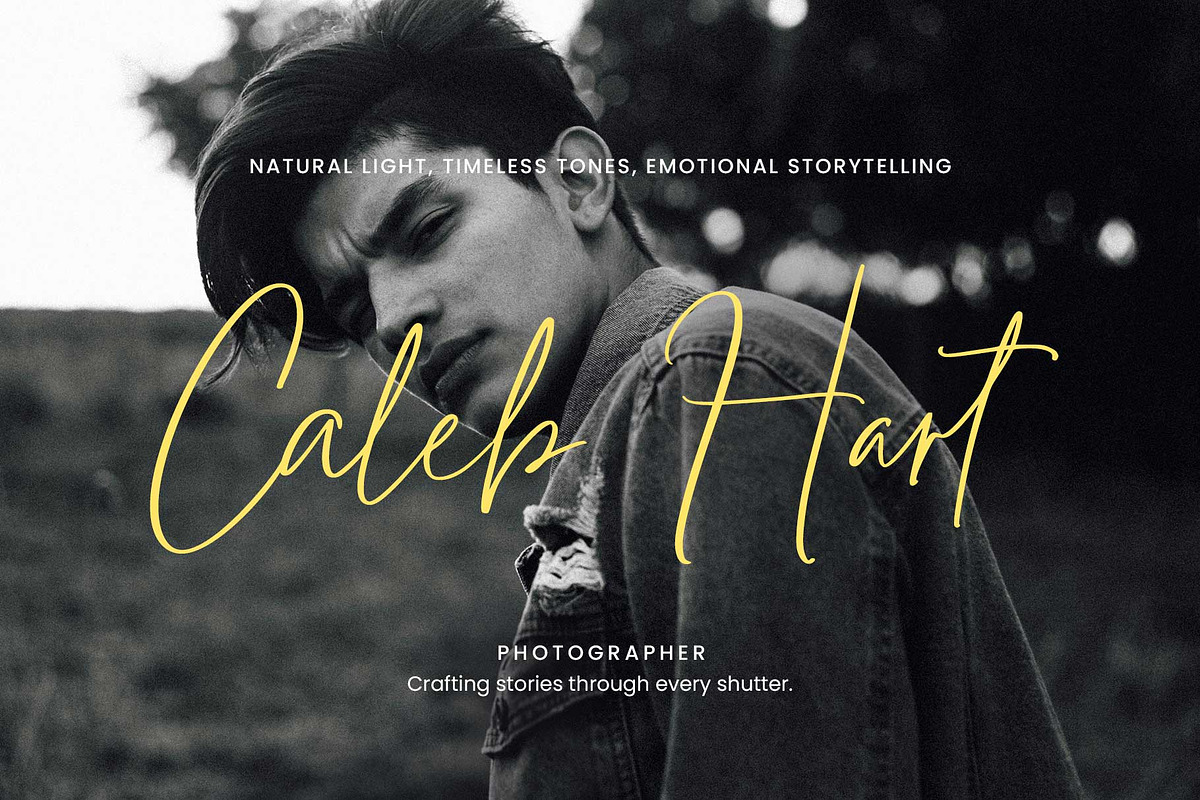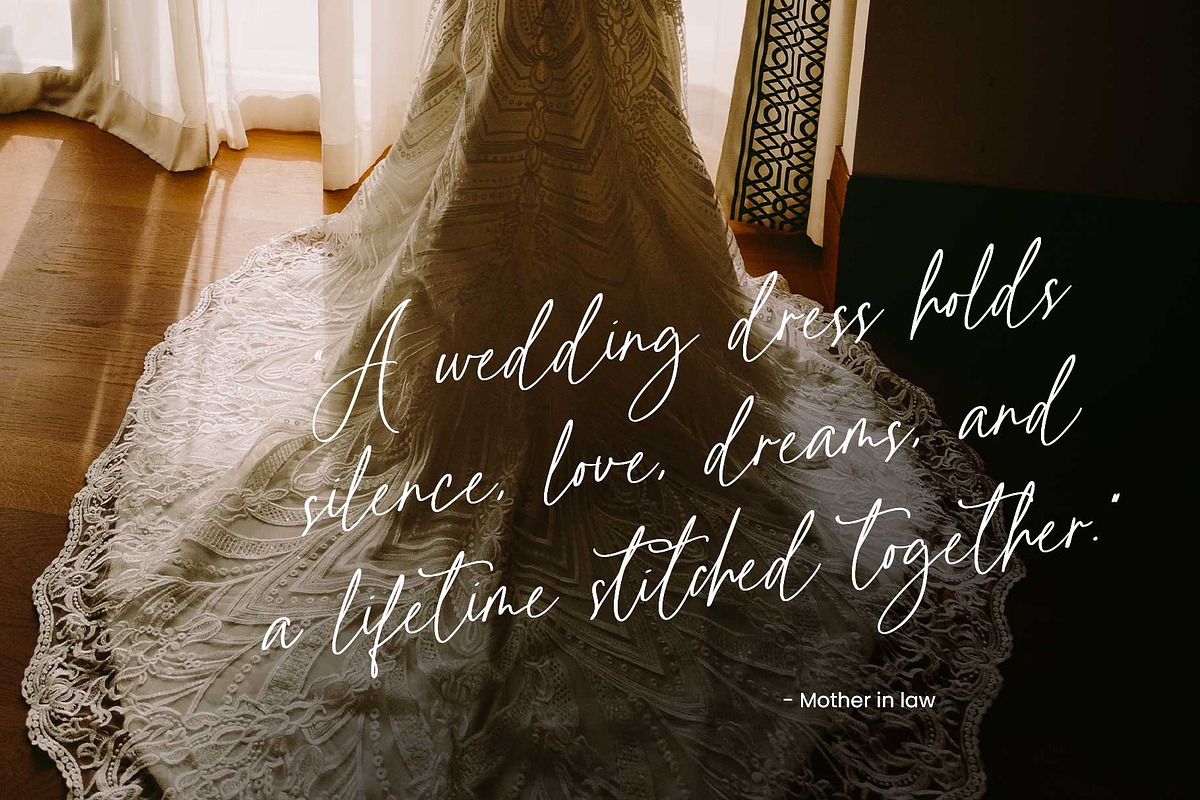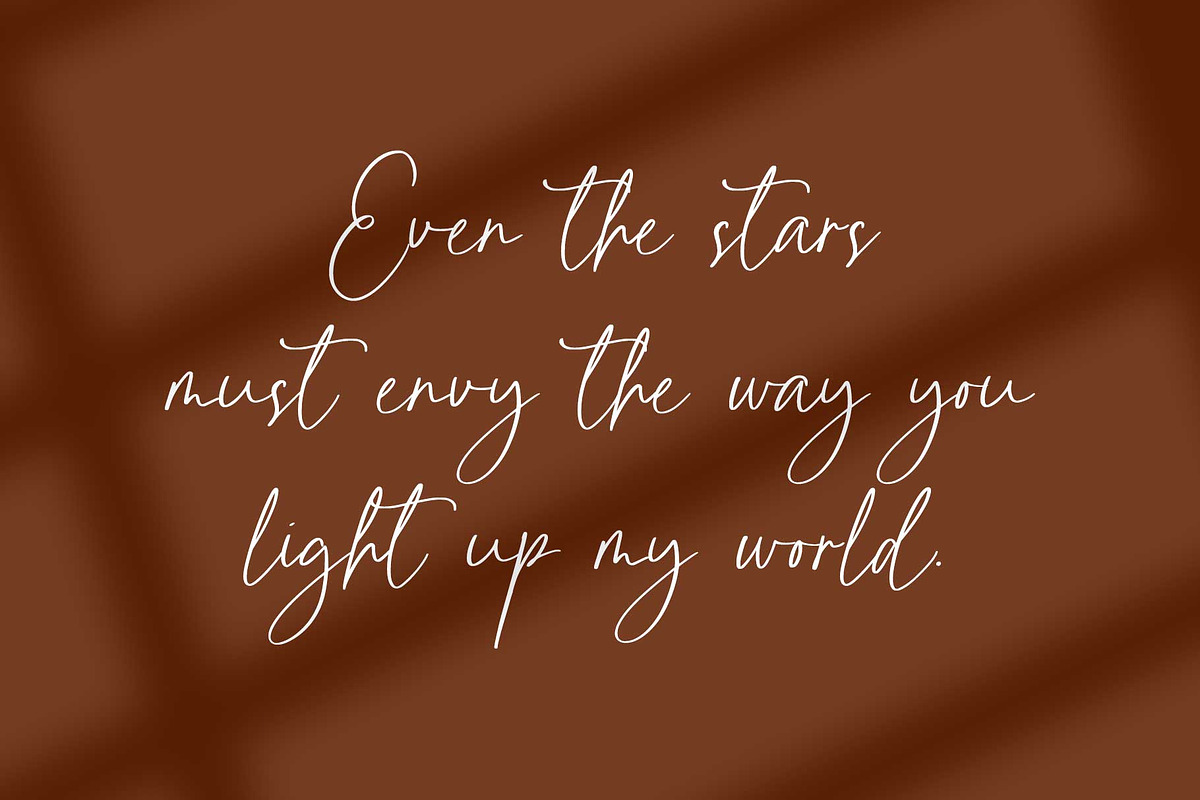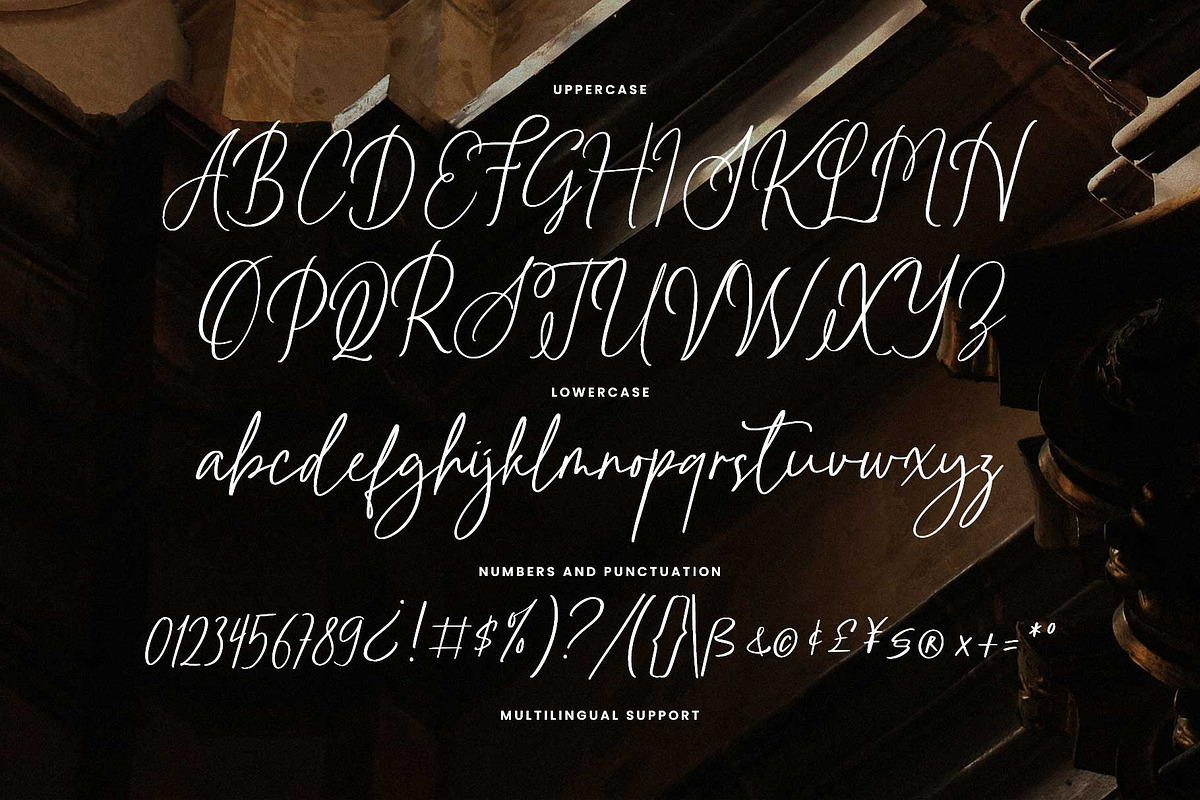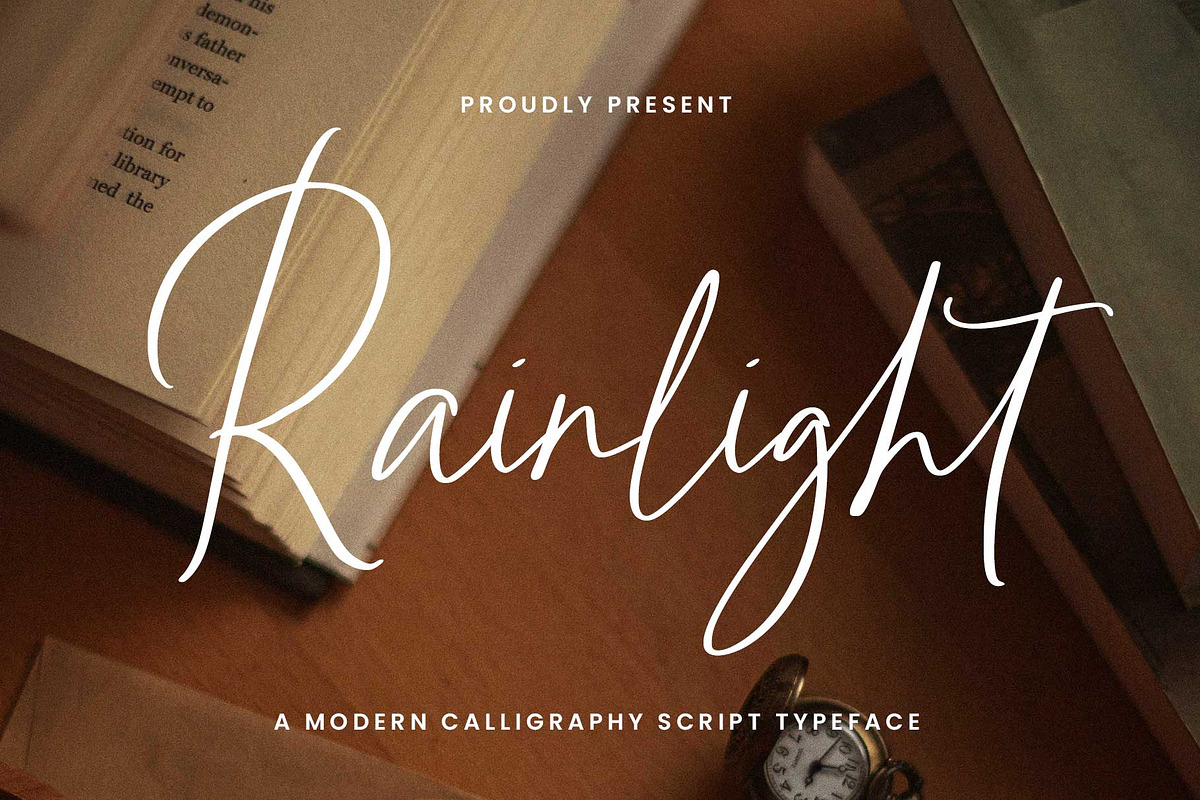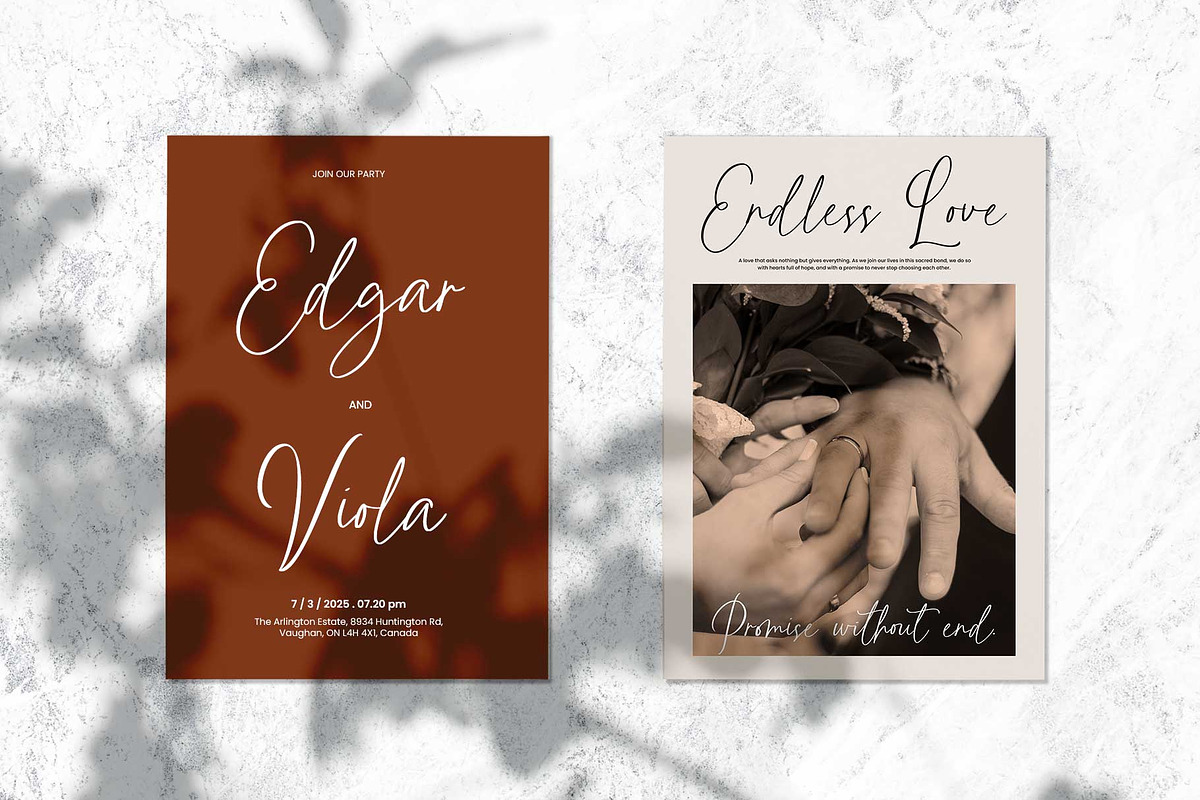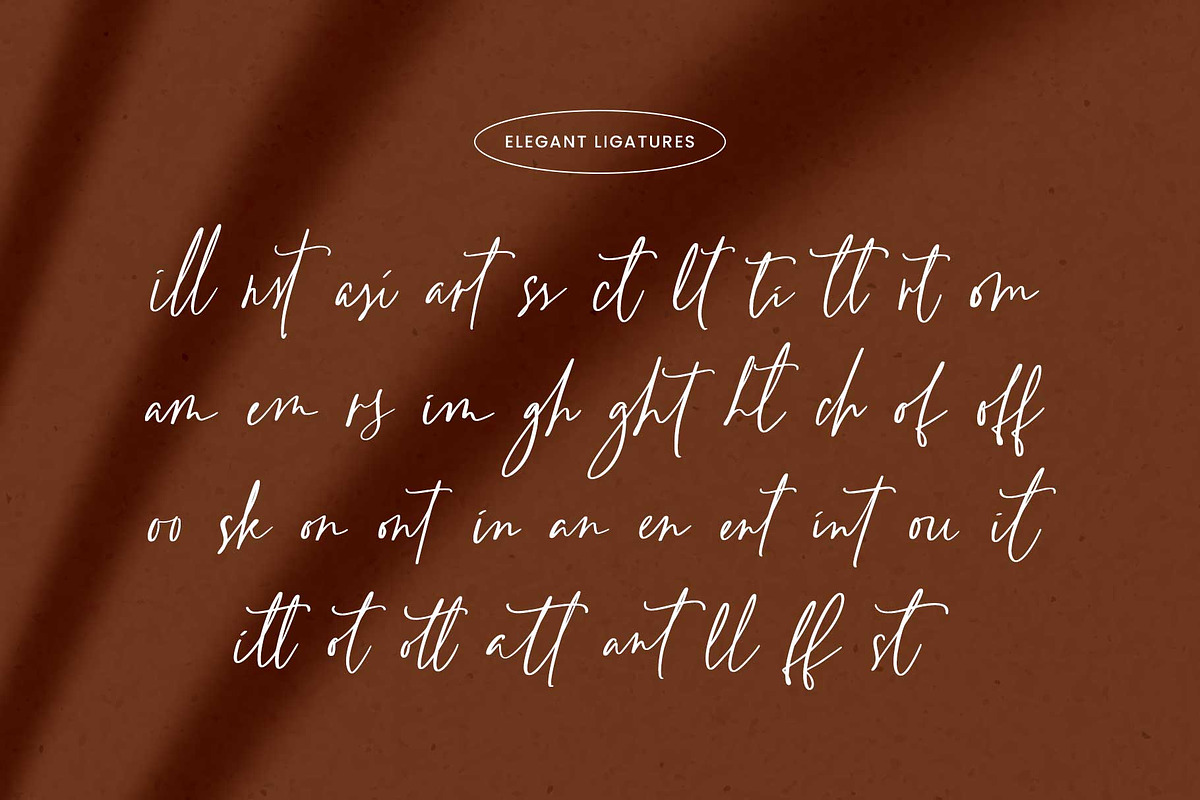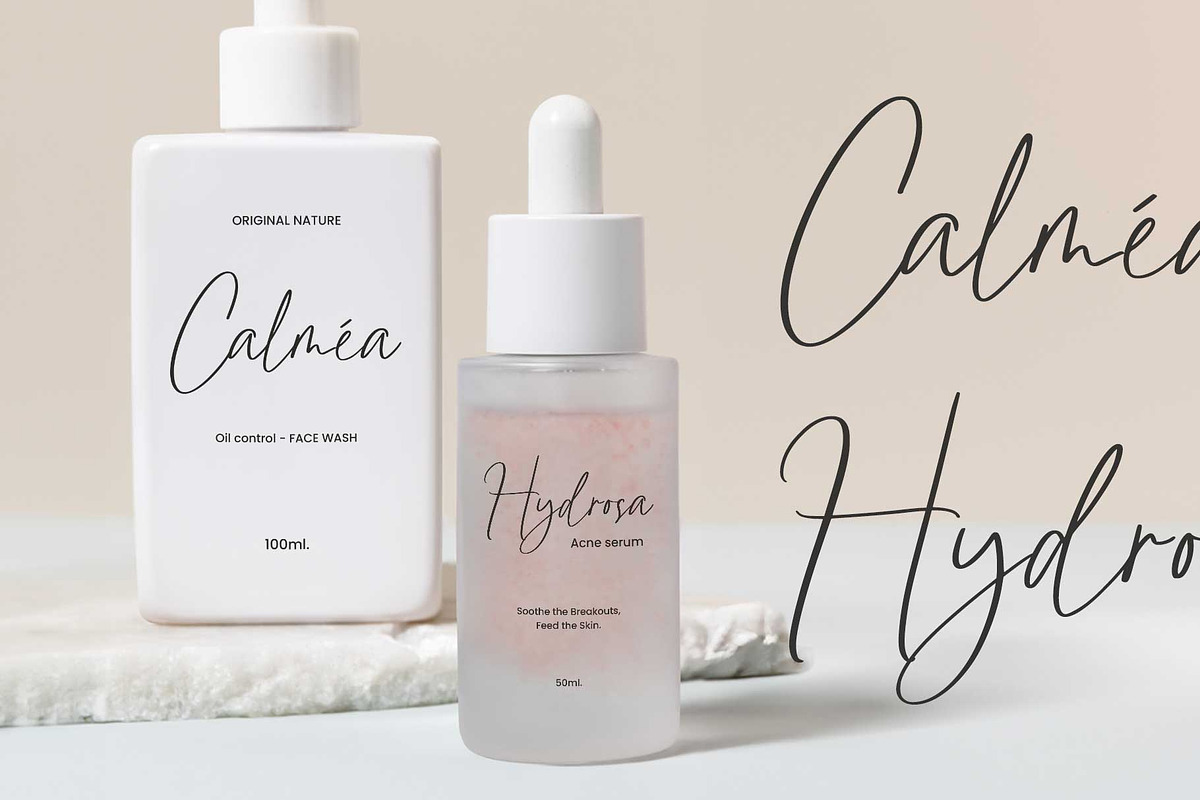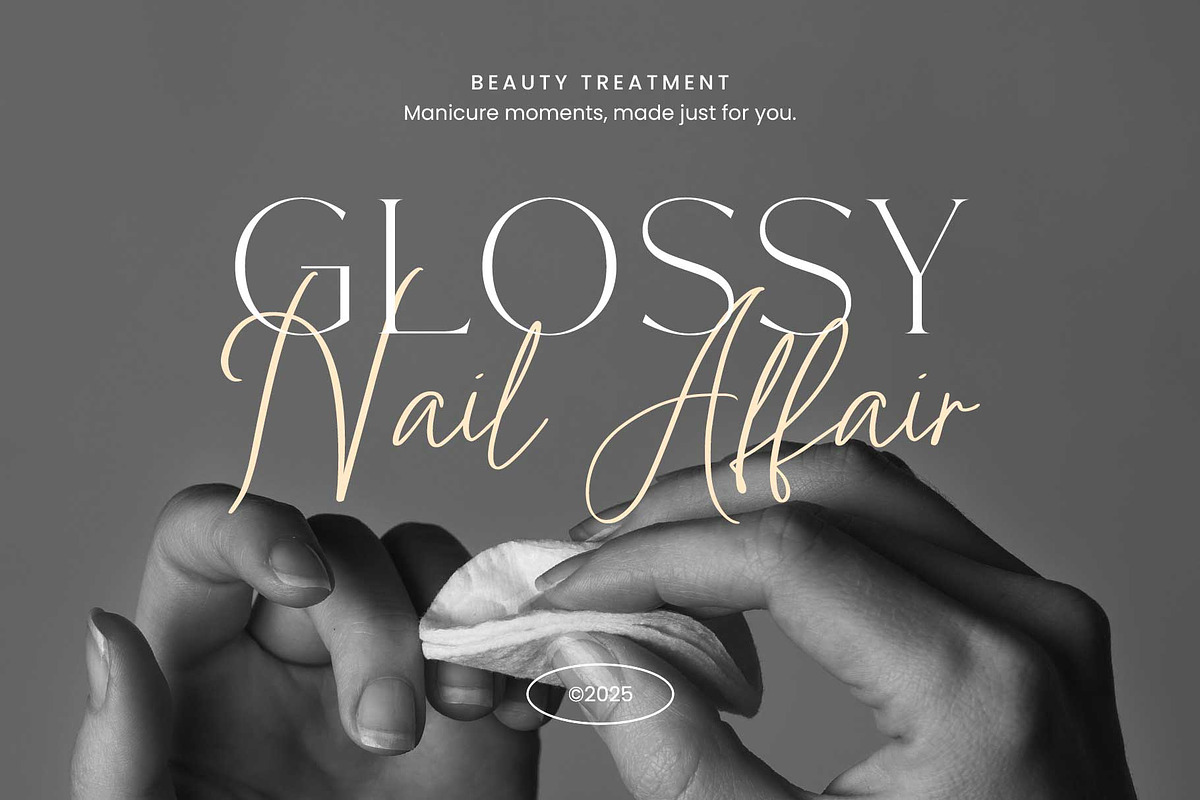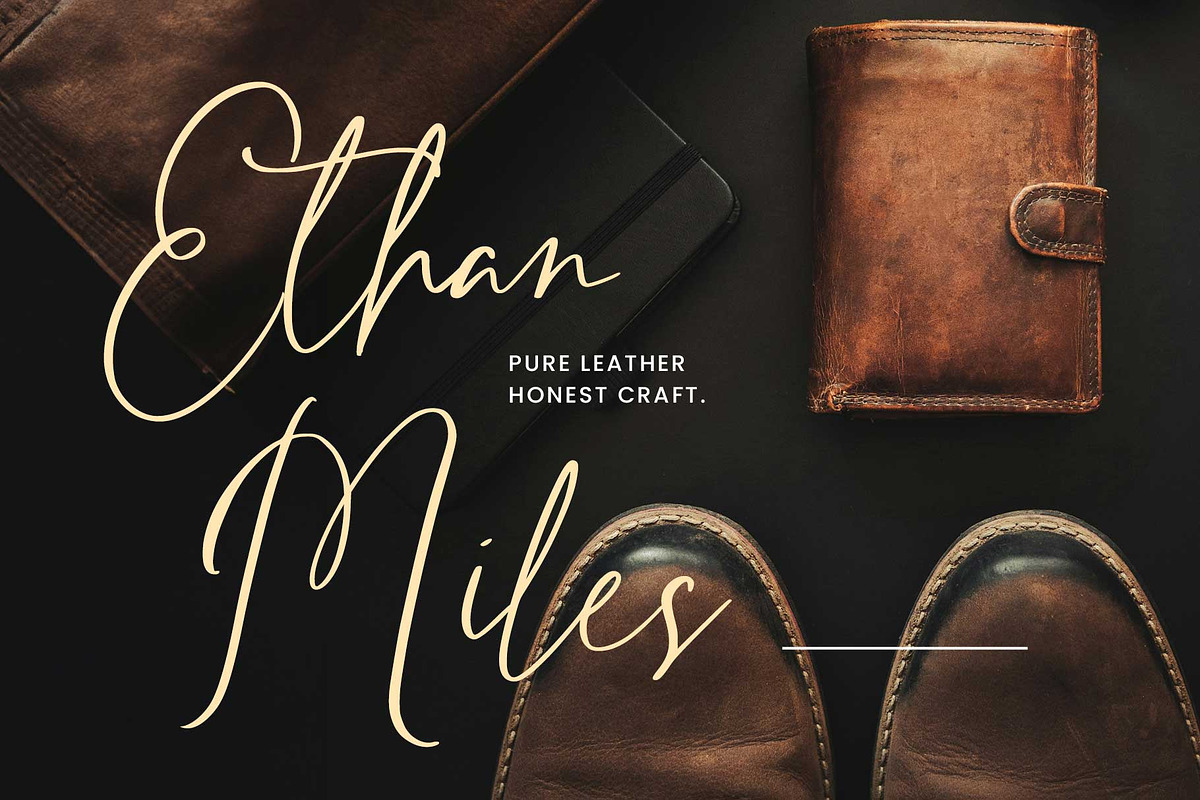
Rainylight - Handwriting Script
Rainlight is a beautiful handwritten script, joyfully crafted with clean strokes and bouncy letterforms that resemble natural handwriting. This charming font brings a soft, heartfelt touch to your designs — chic, romantic, and deeply personal.
Perfect for weddings, greeting cards, logotypes, branding, social media posts, websites, signatures, labels, and more. Rainlight also features a variety of special characters, giving you multiple typographic styles to explore and express your creativity.
- Stylistic alternates